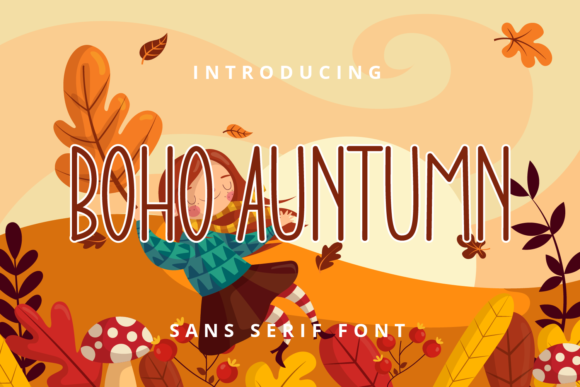
The Ultimate Guide to Boho Auntumn Font: Elevate Your Designs with this Charming Sans Serif Font
I’ll never forget the time I was working on a project for a client who wanted a font that was both playful and sophisticated. I spent hours scouring the internet for the perfect font, but nothing seemed quite right. That was until I stumbled upon Boho Auntumn Font. This cute, simple, and clean sans serif font has been a game-changer for my designs, and I’m excited to share its awesomeness with you! 😊
An Honest Review of Boho Auntumn Font
What I Love About Boho Auntumn Font ✨
• ✅ Versatility: Boho Auntumn Font is incredibly versatile and can be used for a wide range of projects, from crafting and DIY tutorials to branding and advertising.
• ✅ Readability: The font is clean and easy to read, making it perfect for body text or headings.
• ✅ Personality: Boho Auntumn Font has a unique and charming personality that adds a touch of whimsy to any design.
• ⚠️ Limited OpenType features: Boho Auntumn Font has some OpenType features, but it’s not as extensive as some other fonts.
• ⚠️ No italic version: Unfortunately, Boho Auntumn Font does not have an italic version, which may limit its use in certain projects.
The Backstory of Boho Auntumn Font
Boho Auntumn Font was designed by a team of creatives who wanted to create a font that was both playful and sophisticated. Inspired by the bohemian lifestyle and the beauty of autumn, they crafted a font that is both charming and versatile.
Font Name Boho Auntumn Font
Author nicetrip7
Boho Auntumn Font is a cute, simple, and clean sans serif font that is perfect for a wide range of design projects.